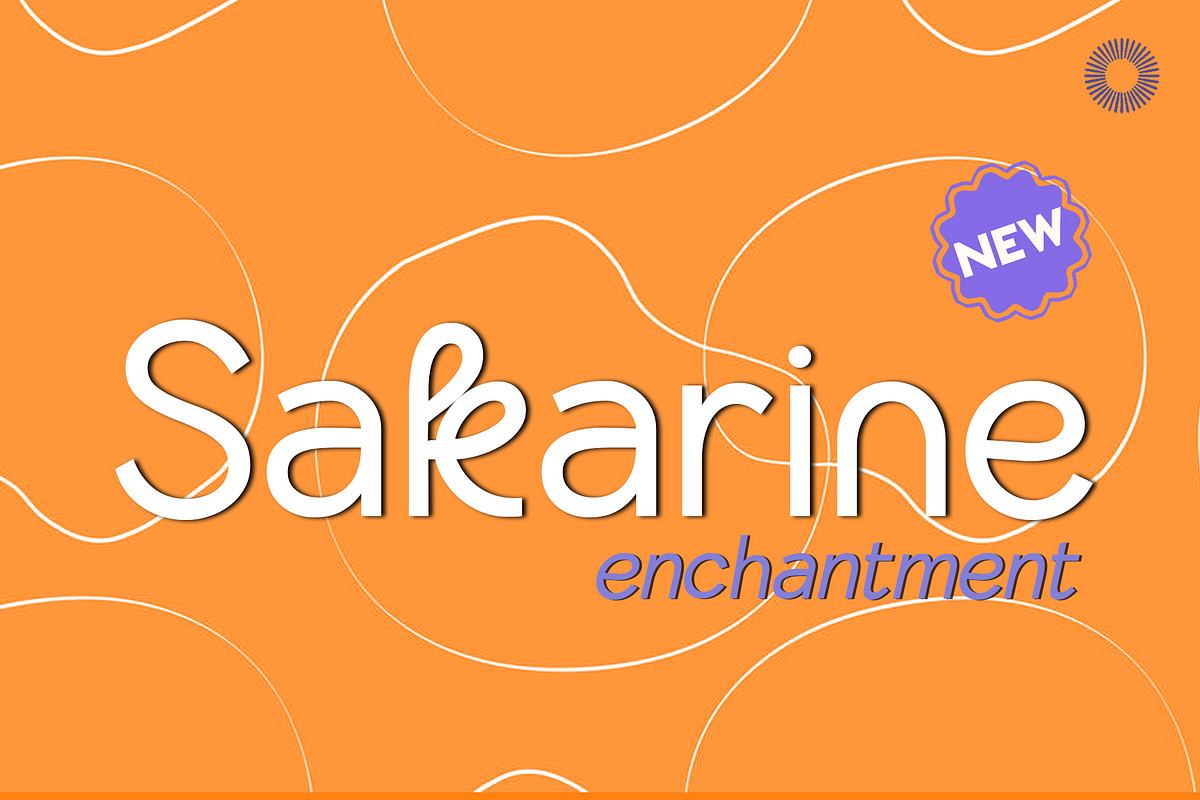
Modern, sleek, and highly versatile, Sakarine Typeface - Sans Serif Font Free Download is a contemporary sans-serif typeface designed to bring clarity and style to your design projects. Perfect for logos, branding, websites, packaging, and social media graphics, this font delivers a clean, minimalistic look that suits both professional and creative designs.
With its simple, geometric letterforms and balanced proportions, Sakarine offers excellent legibility, making it ideal for both display text and body copy. Whether you’re working on a sleek corporate identity, a trendy website, or an elegant product label, this font provides the flexibility and elegance you need.